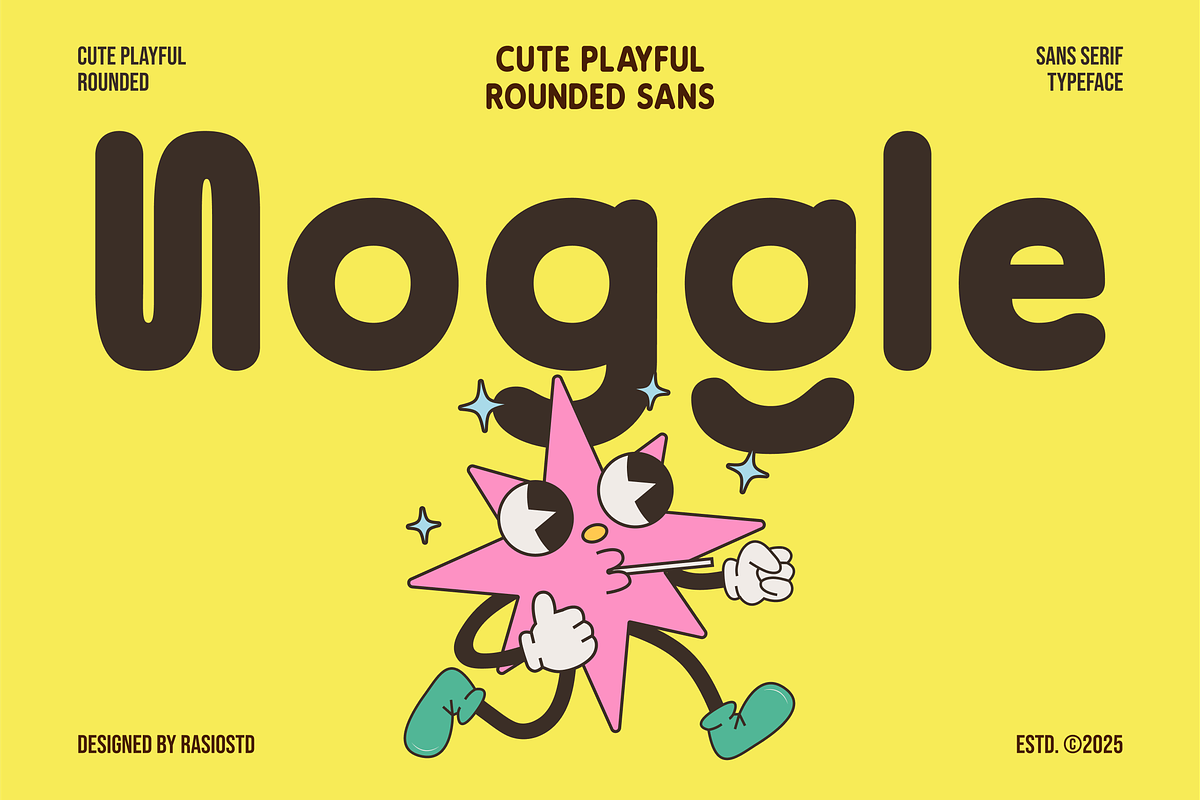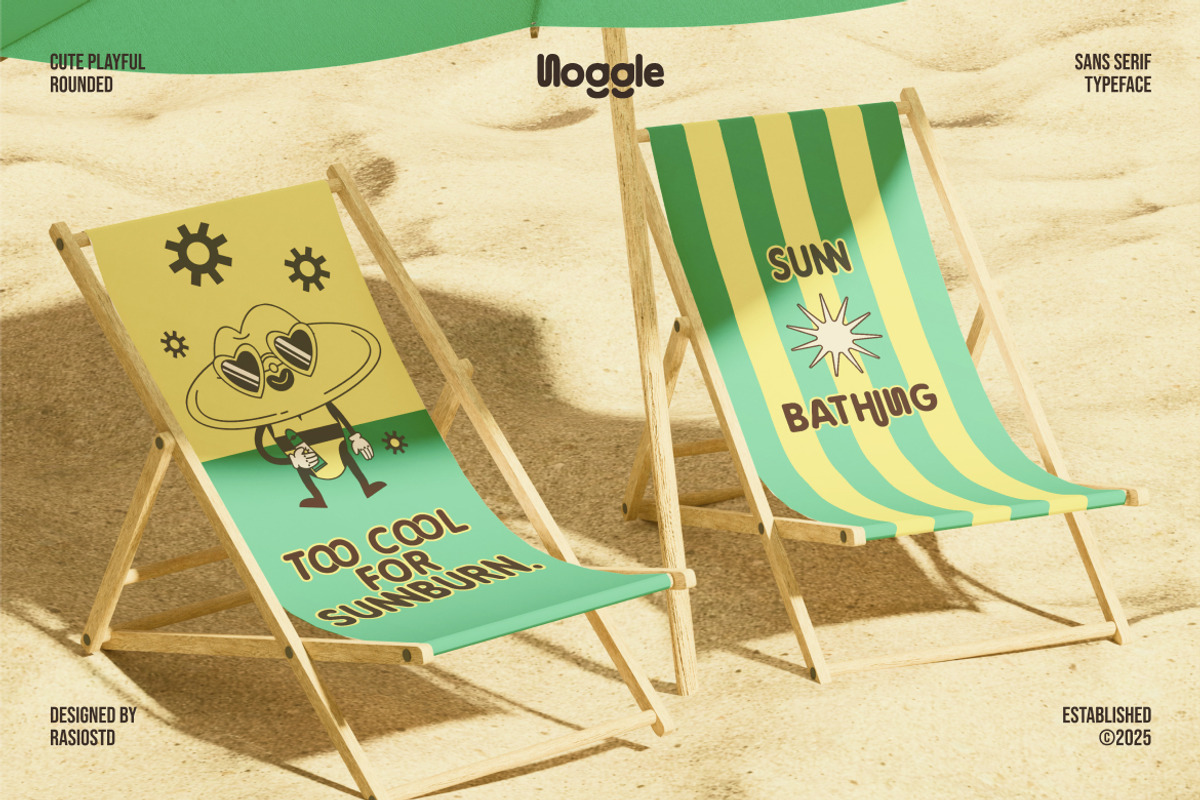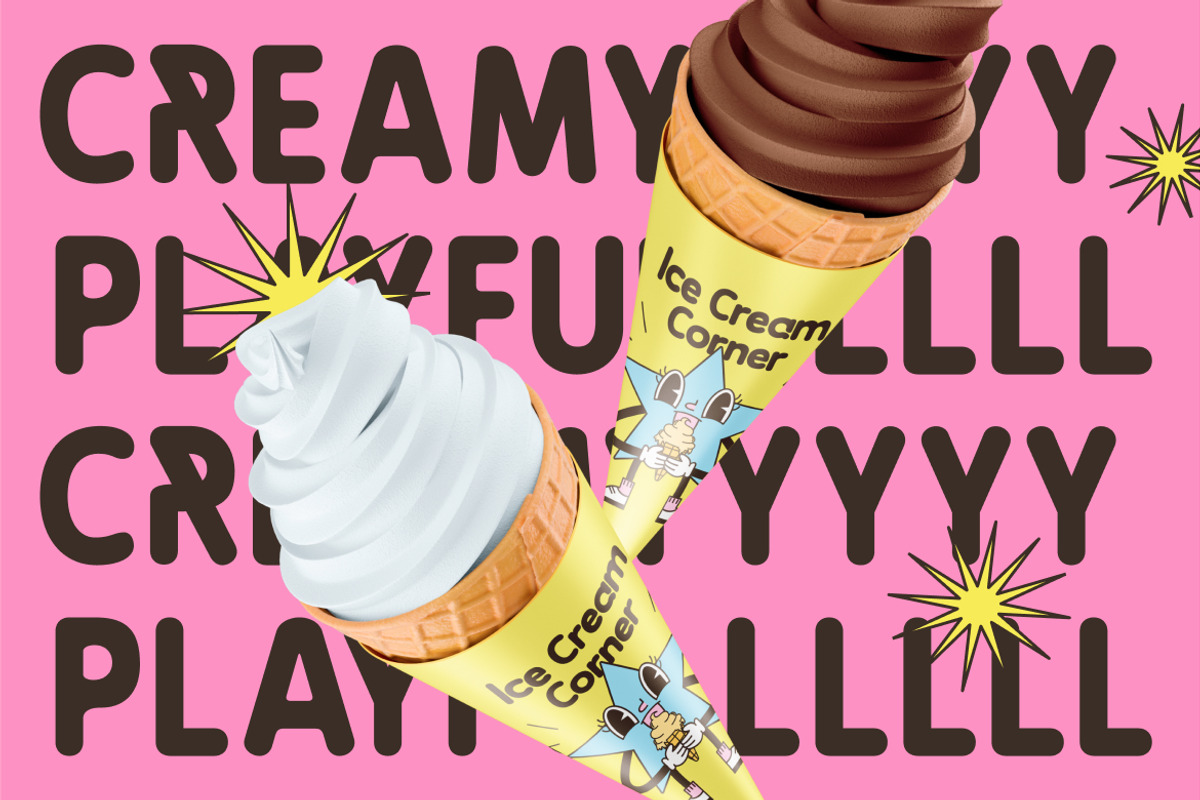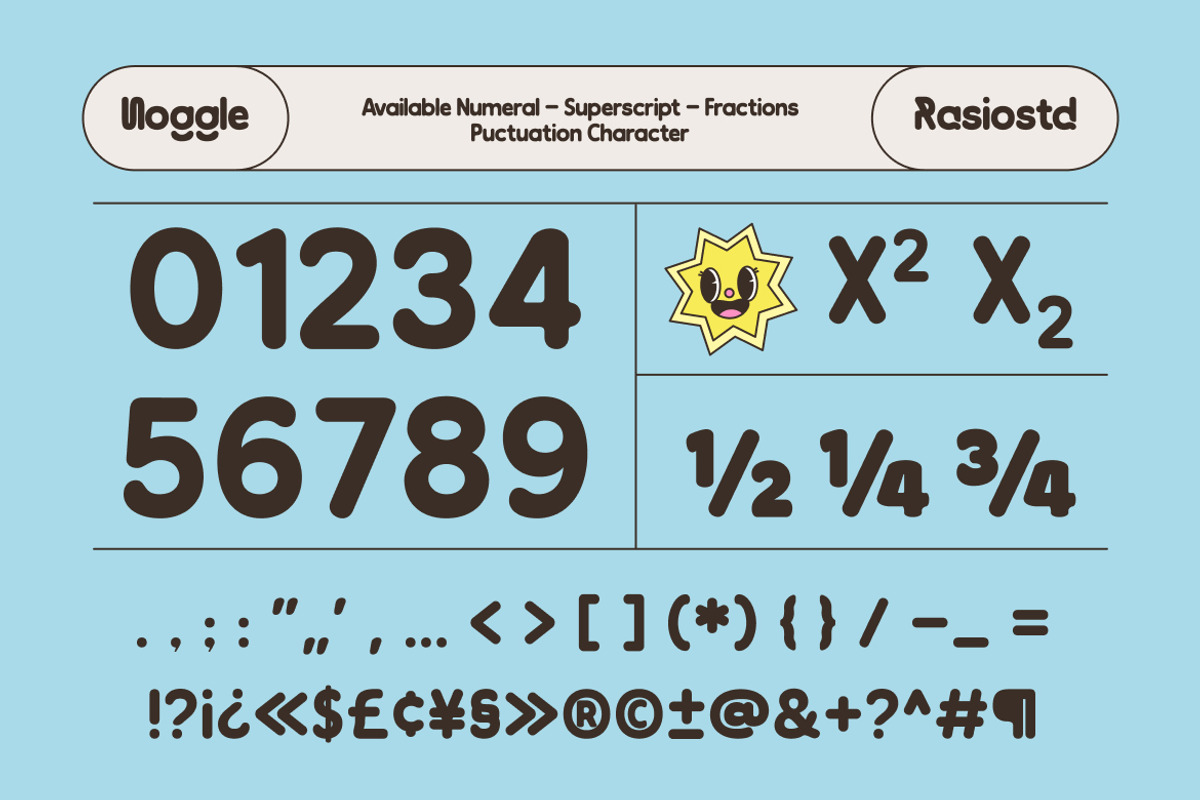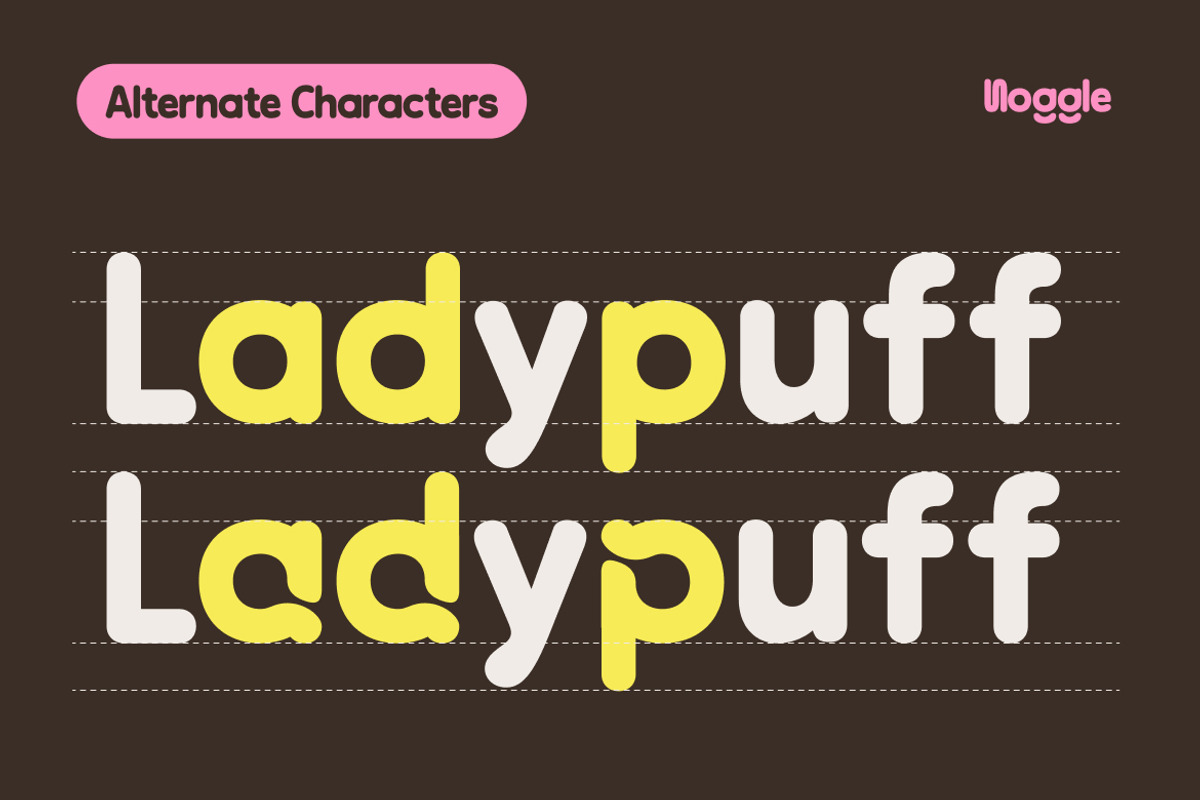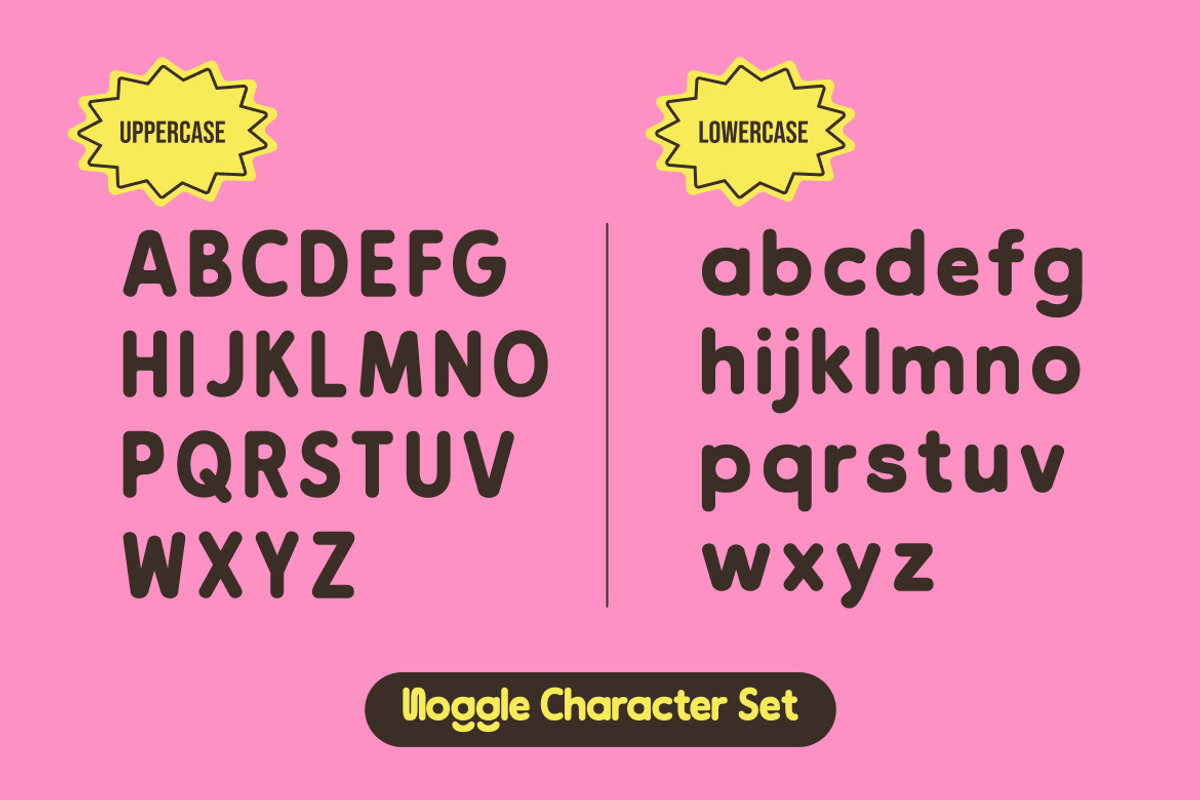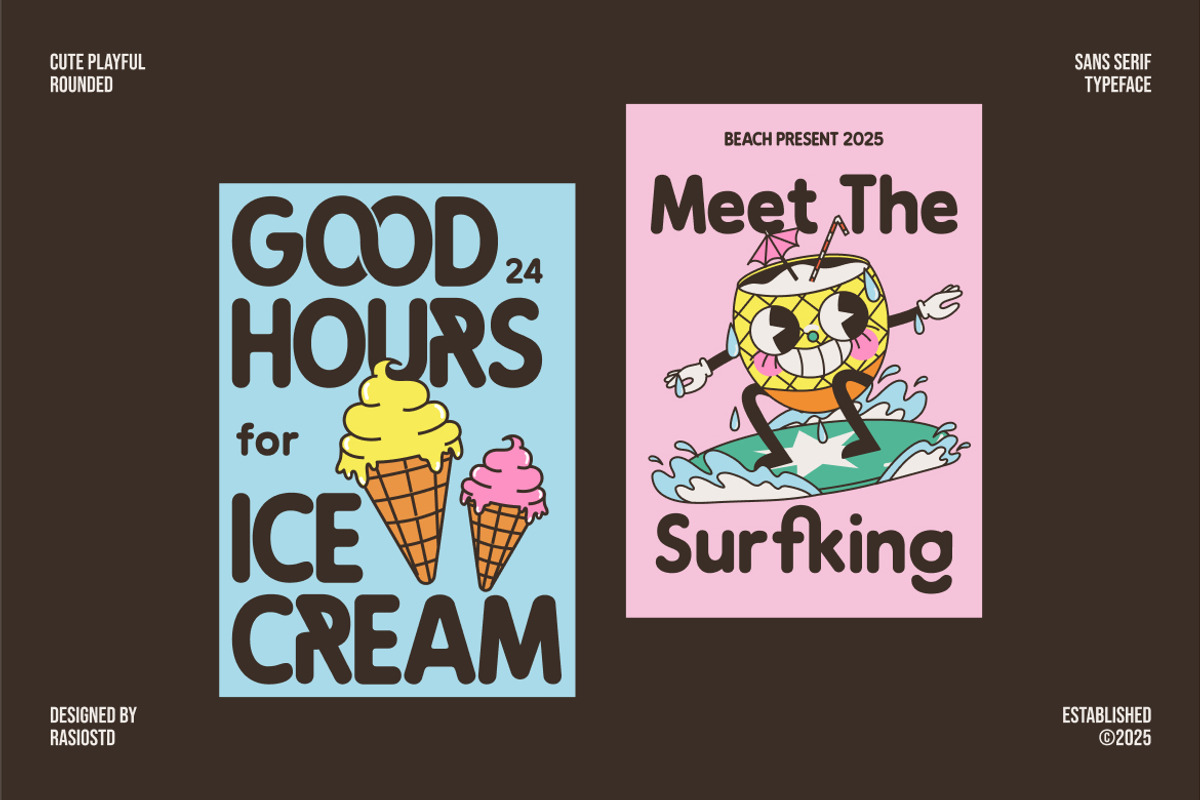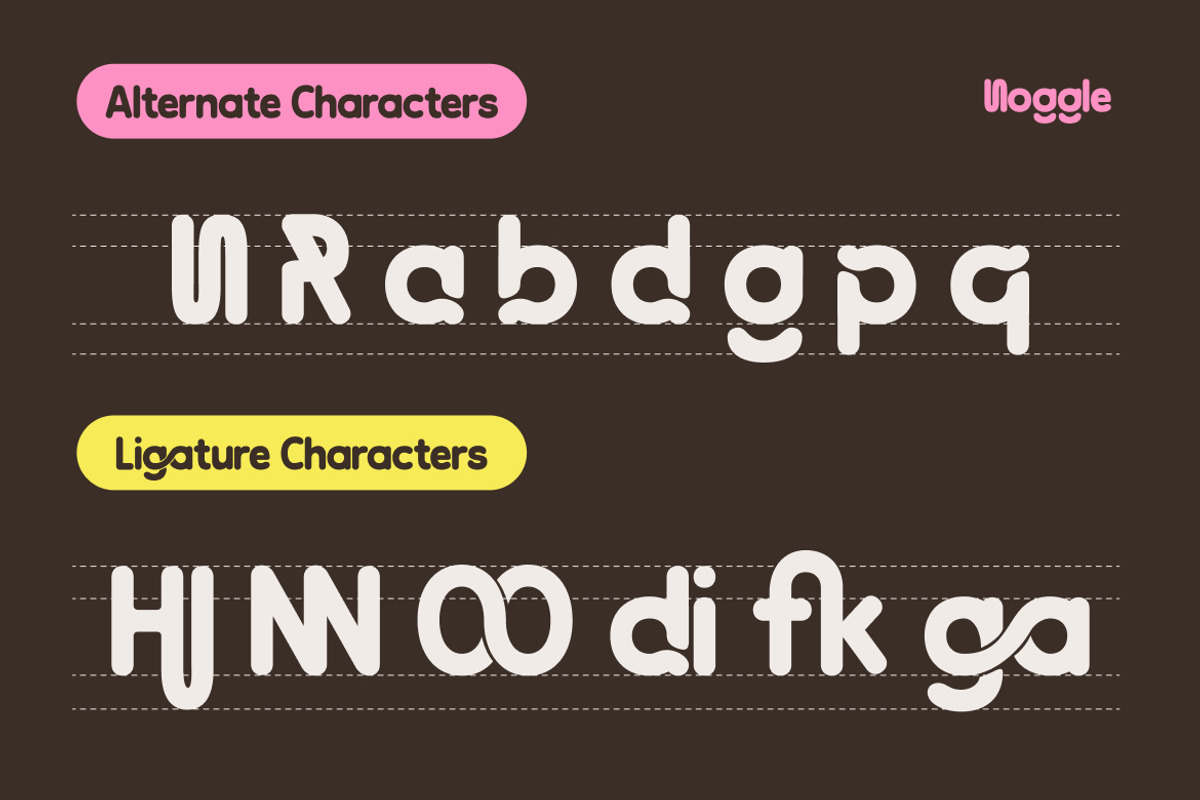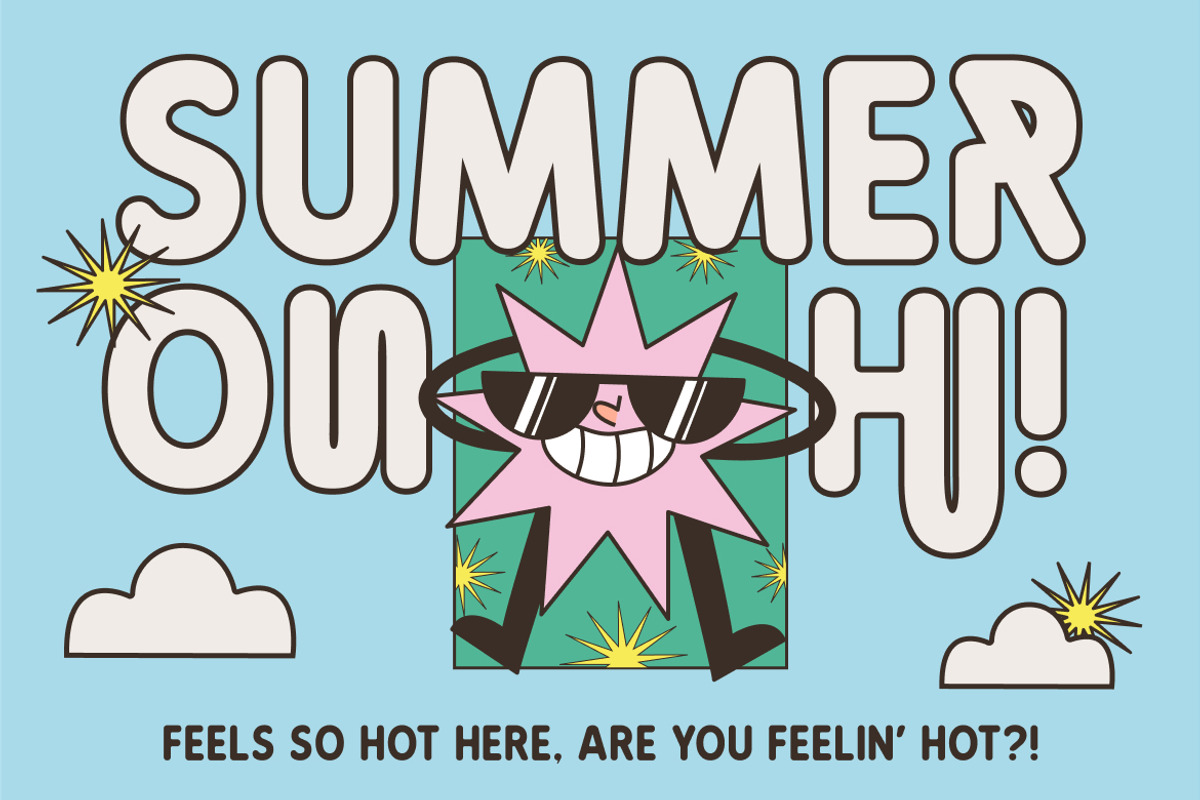
Noggle Cute Playful Rounded Font
Noggle is a cute and cheerful rounded sans serif typeface designed to bring fun and friendliness into your creative projects. Its bubbly curves and bold structure make it perfect for children’s content, packaging, cartoons, and social media graphics. The font includes uppercase and lowercase letters, numerals, punctuation, multilingual support, and playful alternates.
Noggle is perfect for designers looking to infuse their projects with fun and friendliness. Its soft, round shapes and playful vibe make it an excellent choice for kids-related branding, toys, games, educational content, event posters, greeting cards, and creative packaging. With a clean yet joyful design, Noggle fits well in projects that want to convey approachability and warmth.
- Bold rounded sans serif with a soft, bubbly personality
- Smooth, thick curves deliver a friendly and approachable tone
- Playful proportions and open counters enhance visual clarity
- Balanced letterforms with subtle quirk for unique expression
- Optimized legibility for both headlines and fun text blocks
- Children’s books, learning materials, and educational games
- Branding for playful products, snack packaging, or toy lines
- Social media graphics for lifestyle, kids, or family content
- Merchandising like t-shirts, stickers, and character branding
- Event invitations, posters, or signage for fun, casual occasions
Playful curves, bold fun, Noggle makes every letter come to life